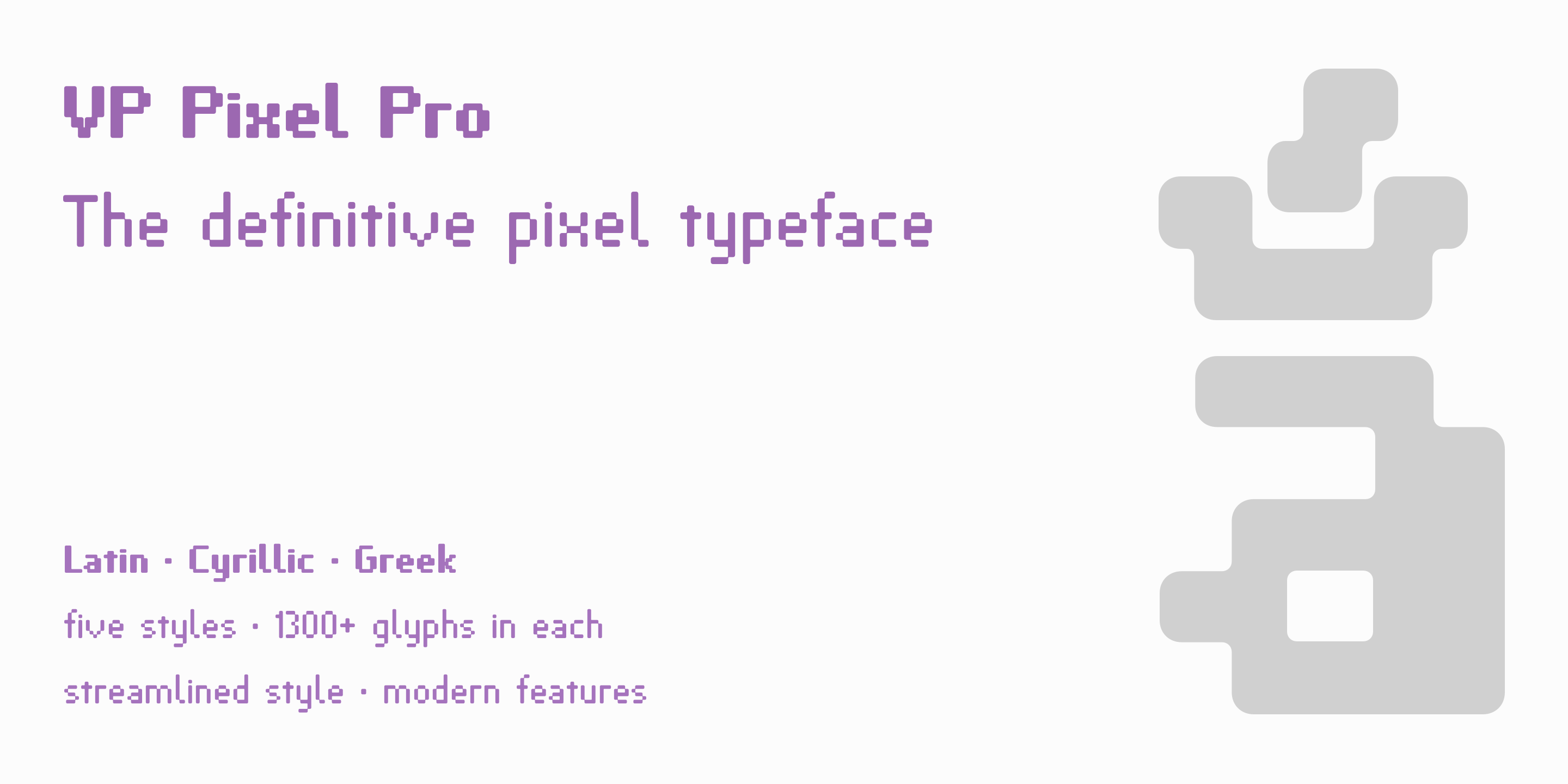
VP Pixel Pro Font is perfect for retro gaming studios, indie game development, pixel art exhibitions, vintage arcade venues, nostalgic tech brands, digital art platforms, 8-bit music projects, and authentic retro gaming communications.
What makes VP Pixel Pro Font truly exciting is its professional ability to elevate classic pixel aesthetics to contemporary design standards through meticulously crafted bitmap letterforms that honor gaming heritage while delivering modern functionality and visual sophistication. This exceptional typeface features precisely rendered pixel characteristics with professional-grade refinement that instantly conveys nostalgic authenticity, gaming expertise, and digital craftsmanship, making it the perfect choice for brands celebrating retro gaming culture, developing pixel-based content, and communicating with audiences who appreciate the artistry and technical precision of classic video game design.
The VP Pixel Pro Font family includes regular, condensed, bold, and ultra-sharp variations, complemented by gaming ornaments and classic 8-bit alternates that enhance the retro atmosphere, providing designers with comprehensive tools for creating professional pixel brand experiences and gaming communications that resonate with both nostalgic gamers and contemporary digital artists seeking authentic pixel perfection.
Gaming companies and digital art organizations will discover that VP Pixel Pro Font Free Download transforms pixel projects into professional presentations that command respect from both retro gaming enthusiasts and modern design communities. This versatile typeface excels in both intimate gaming applications and large-scale digital exhibitions, maintaining its pixel character while delivering maximum visual impact across all retro gaming contexts.
The font's professionally engineered construction demonstrates exceptional attention to both pixel authenticity and commercial quality standards, with precisely optimized bitmap rendering that ensures sharp clarity while maintaining true retro gaming appeal. From indie game interfaces to pixel art galleries, this professional typeface maintains its gaming heritage while providing the reliability needed for comprehensive digital entertainment applications. Gaming brands appreciate how this font effortlessly communicates retro expertise, digital precision, and distinguished American pixel design excellence through superior professionally-crafted bitmap typography.